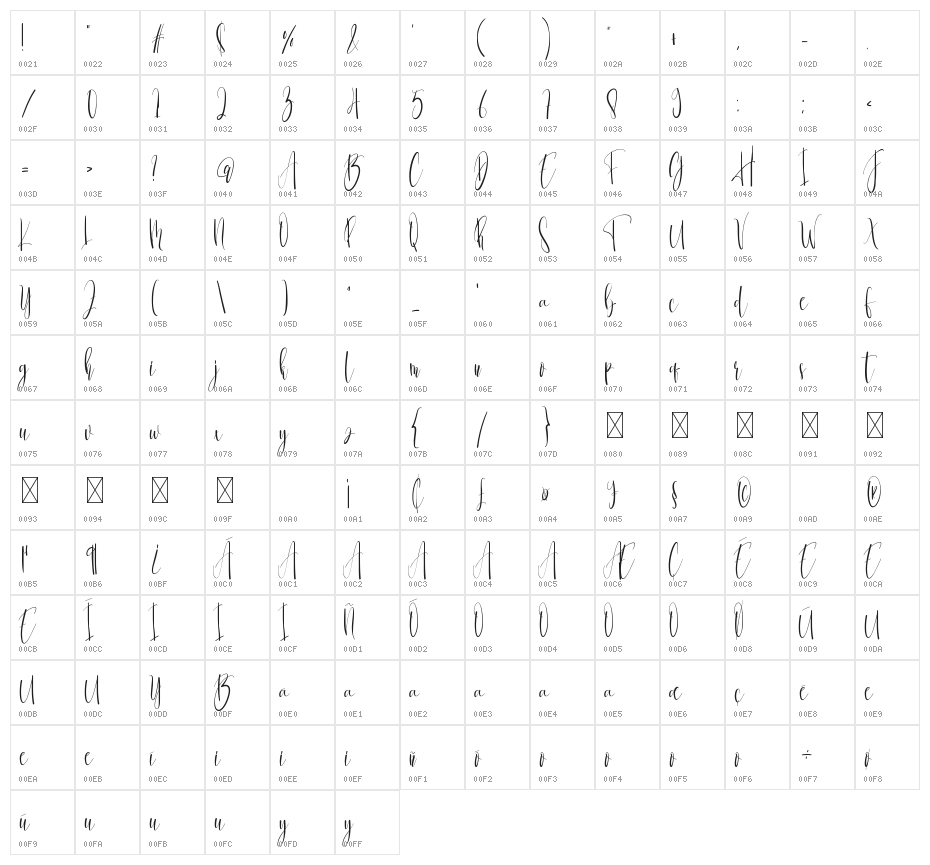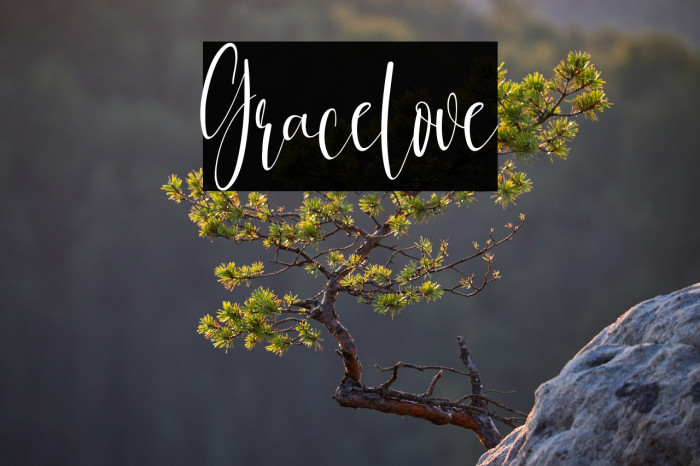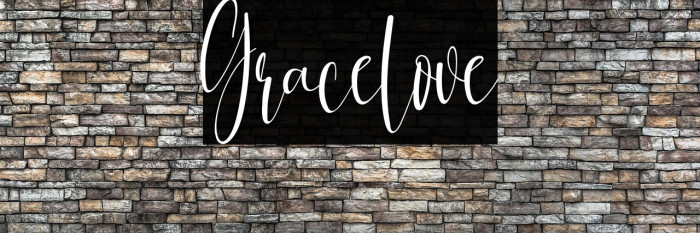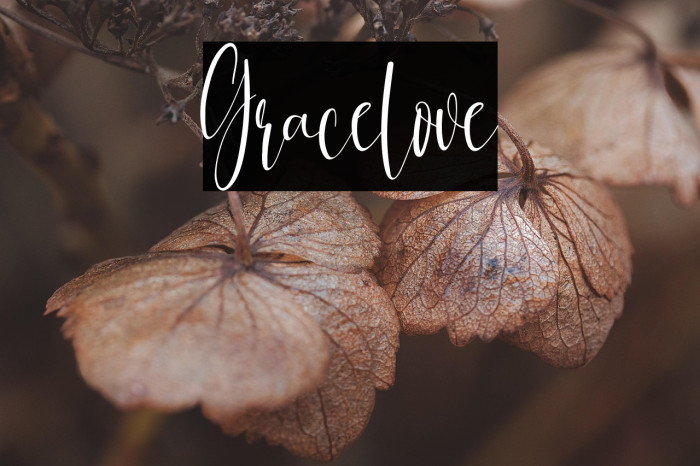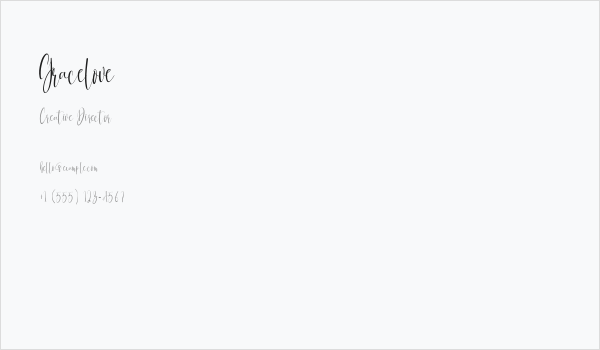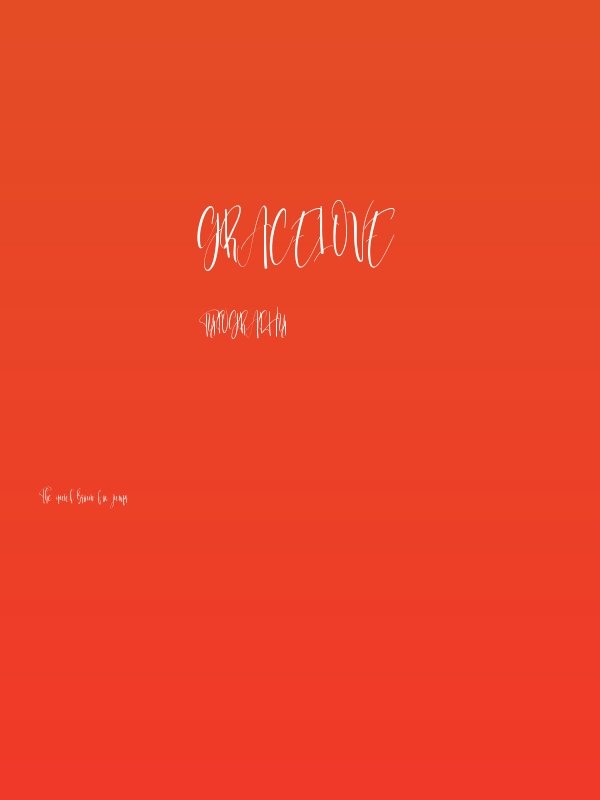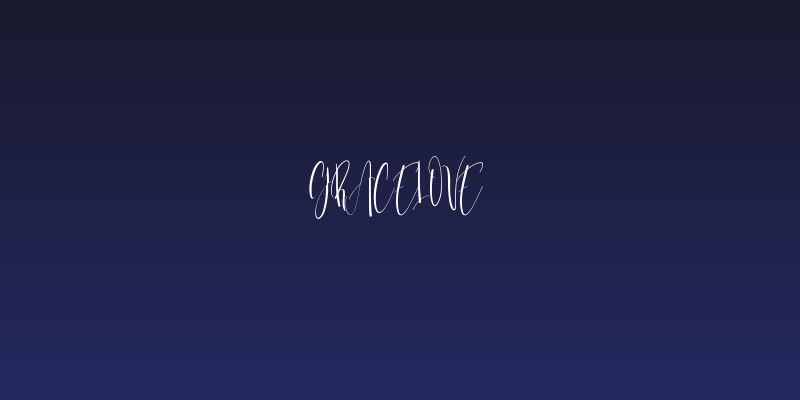
Gracelove Font
Gracelove Description
A decorative script font with elegant, flowing lines and high contrast between thick and thin strokes.
| Use Case | Logos, Invitations |
| Proposed Projects | Wedding invitations, greeting cards, branding. |